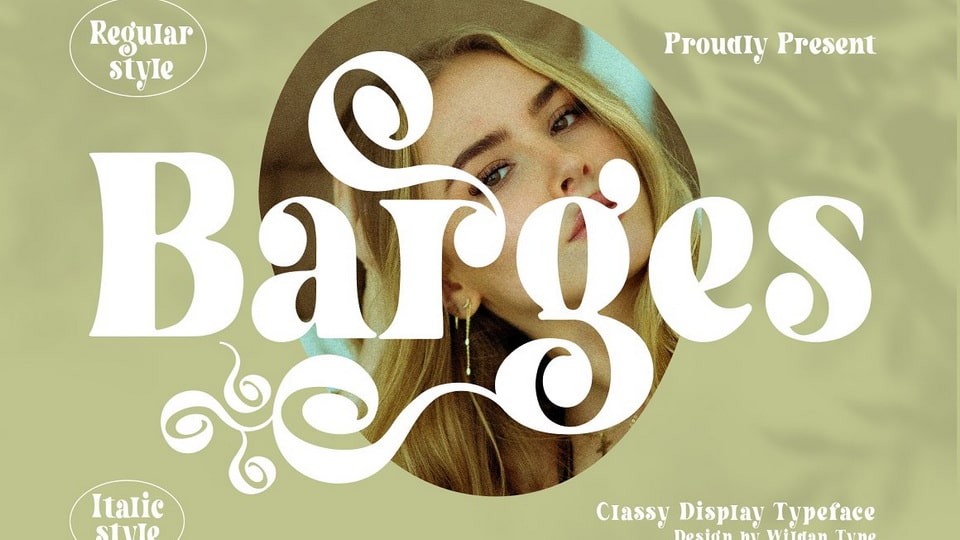
Feb 5, 2025SerifBarges Font Barges is a modern, luxury, and fashionable display font. This font reads as strong, confident, and dynamic and can add tons of stylish character to your designs. Font DetailsDesigned by: Wildan Type (Isolatype)WebsiteLicense: Free for personal use Download Barges FontFile size: 67.94 KBCreated: February 16, 2025Updated: February 16, 2025 Download Explore similar fonts Connect Markets Font Riverine Progress Font Retro Dingo Font Sharp History Font Flowserif Font Rossela Font # Decorative# Elegant# Vintage# Wedding More fonts by Wildan Type (Isolatype)Weather in October FontWomen Frame FontKing Graphics FontSothardjo FontOblygasi FontLostefa Mesmerize FontBaby Blooming FontCoffee Healing Font